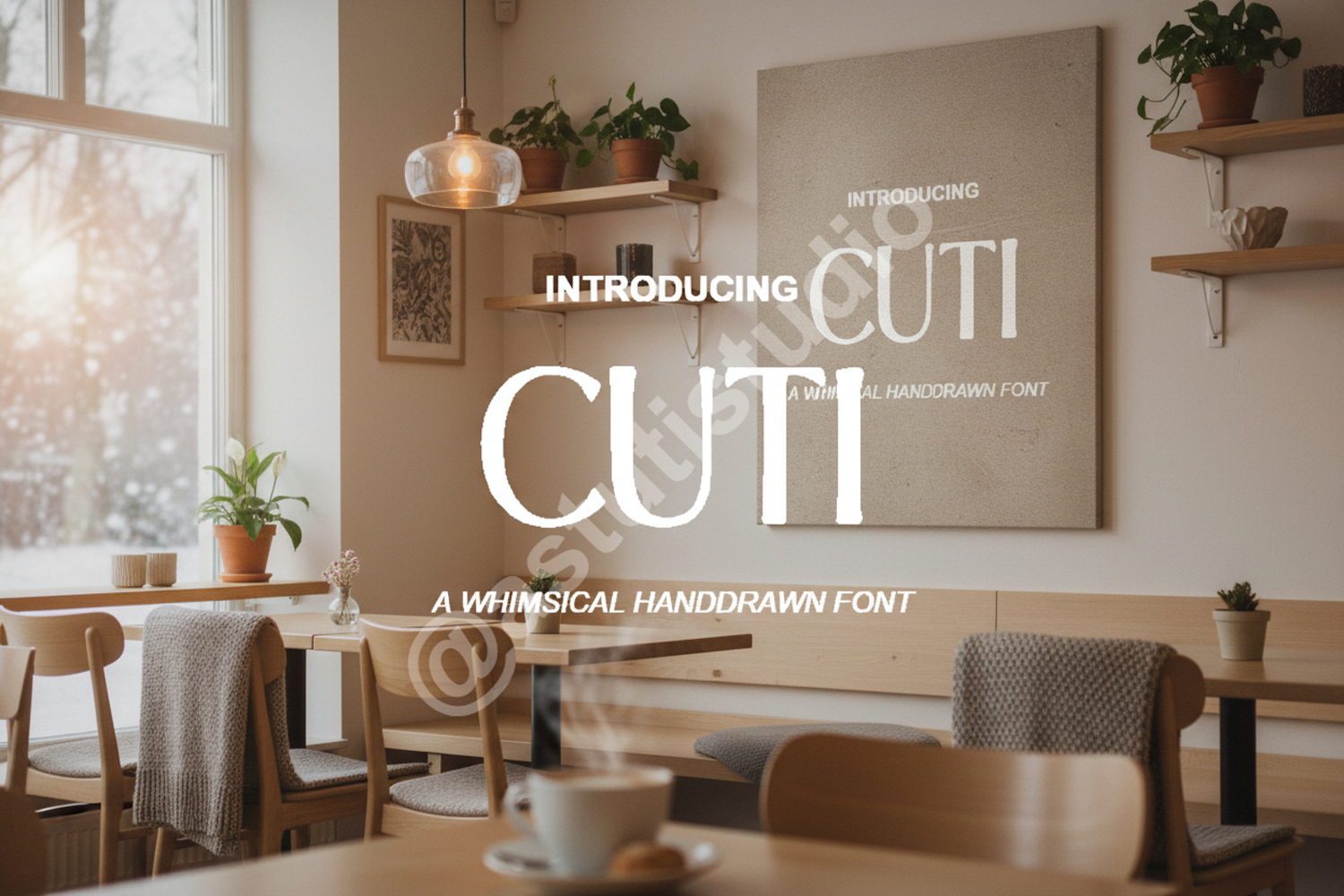
Cuti - A Charming and Sophisticated Modern Serif
Cuti
Cuti is a premium serif font that strikes the perfect balance between modern sophistication and playful charm. Meticulously crafted with clean lines and unique character shapes, this typeface is designed to elevate your creative projects with a touch of timeless elegance and professional flair.
- Branding and Identity: Create memorable logos and cohesive brand marks that stand out.
- Wedding Stationery: Perfect for high-end invitations, elegant menus, and place cards.
- Social Media: Design eye-catching quotes and engaging post graphics for Instagram and Pinterest.
- Editorial Layouts: Ideal for magazine headers, book covers, and stylish blog titles.
- Packaging Design: Add a premium, boutique feel to product labels and boxes.